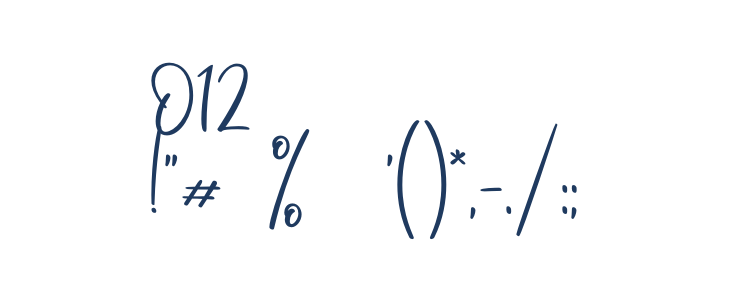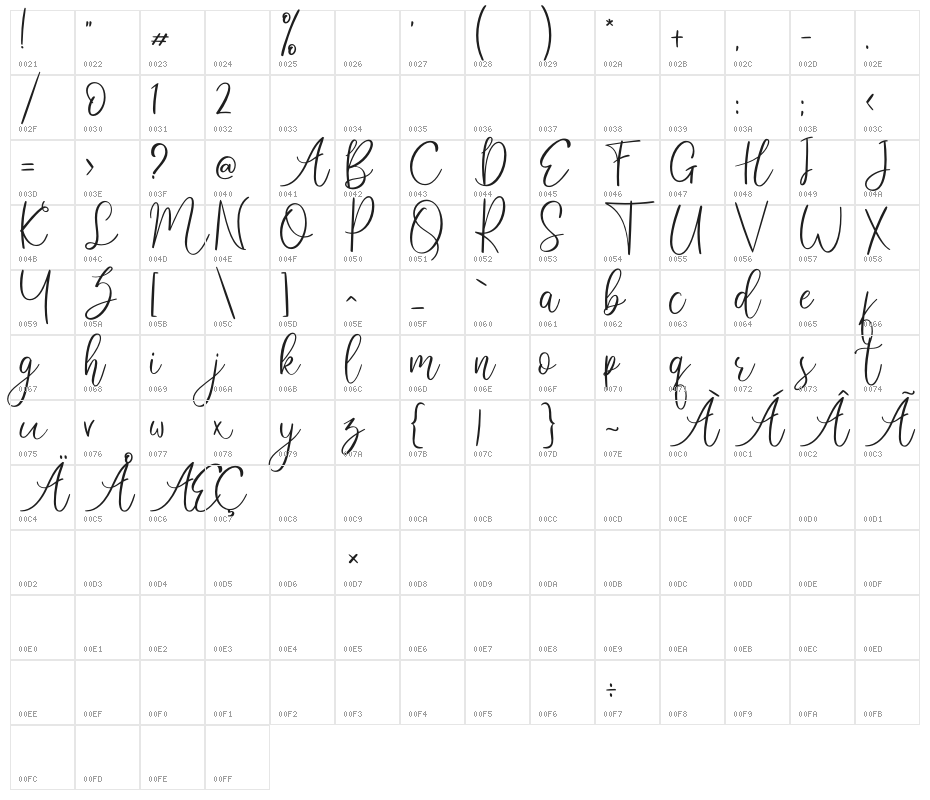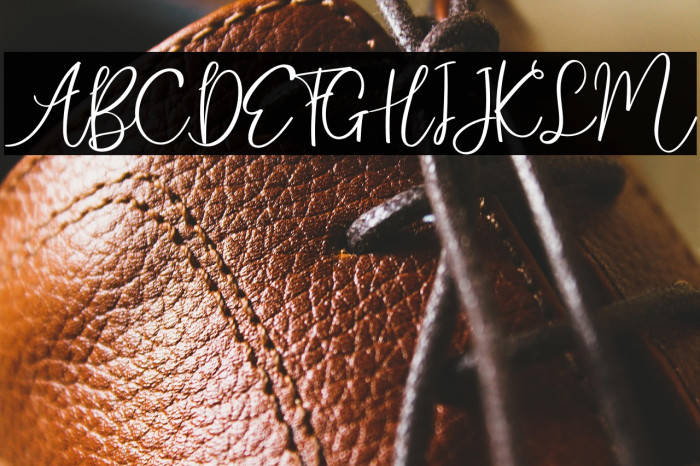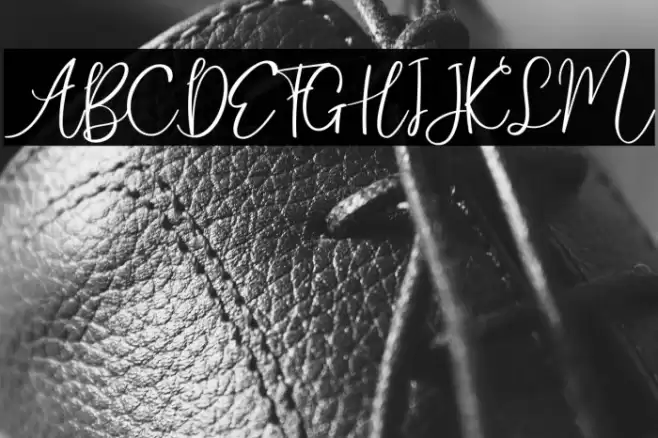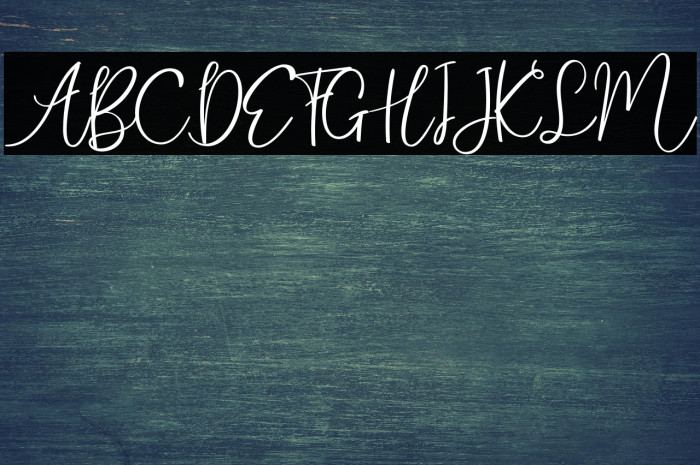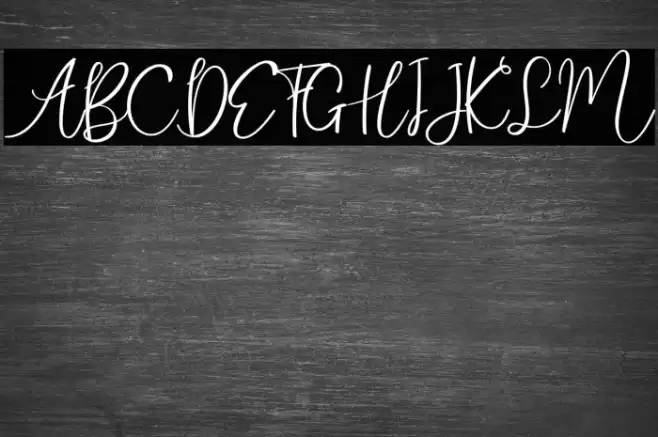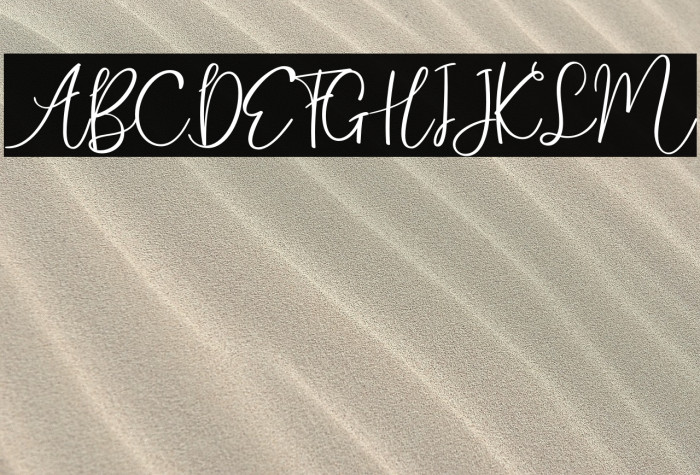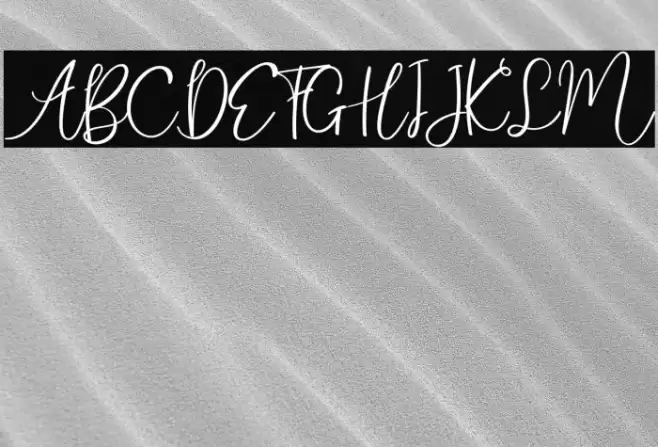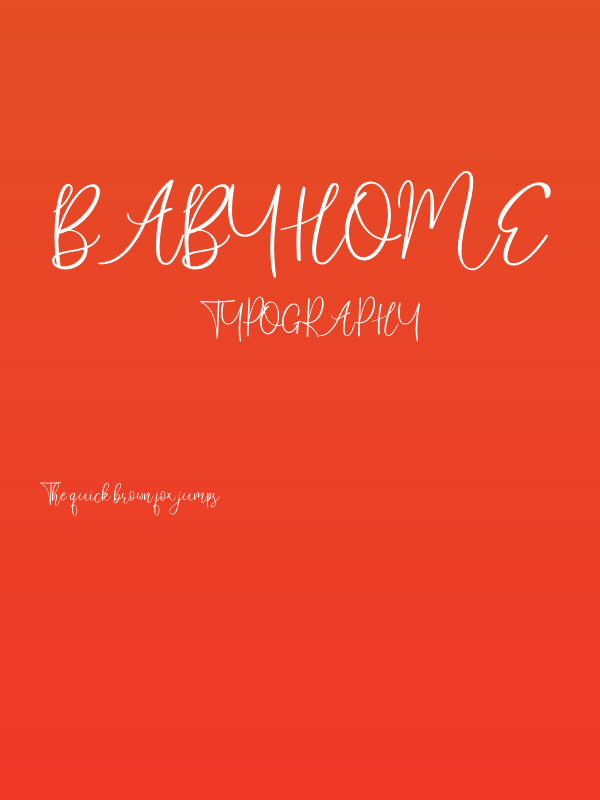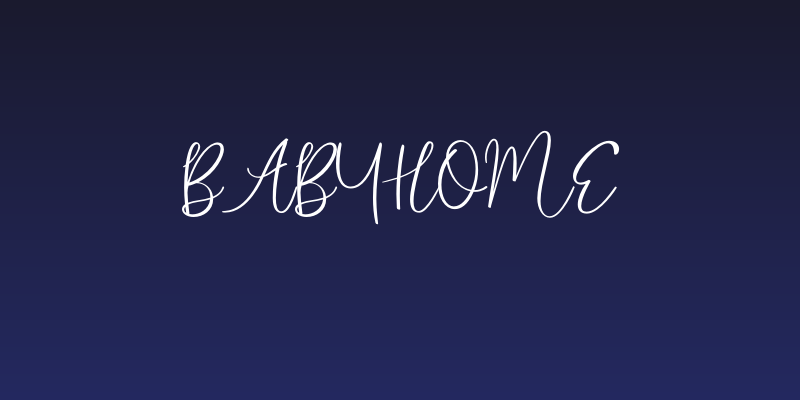
Babyhome Font
Babyhome Description
This font features a playful and elegant handwritten style, characterized by its fluid and cursive letterforms. The uppercase letters exhibit a graceful flow with slightly exaggerated loops and swirls, giving them a whimsical yet sophisticated appearance. The lowercase letters maintain a consistent style, with smooth curves and a natural, flowing rhythm. The numerals are simple and align well with the overall aesthetic, while the special characters add a touch of charm with their unique, hand-drawn quality. The font's overall design is both artistic and approachable, making it suitable for a variety of creative applications.
| Use Case | Logos, Invitations, Social Media |
| Proposed Projects | Ideal for wedding invitations, greeting cards, branding projects, and social media graphics. |